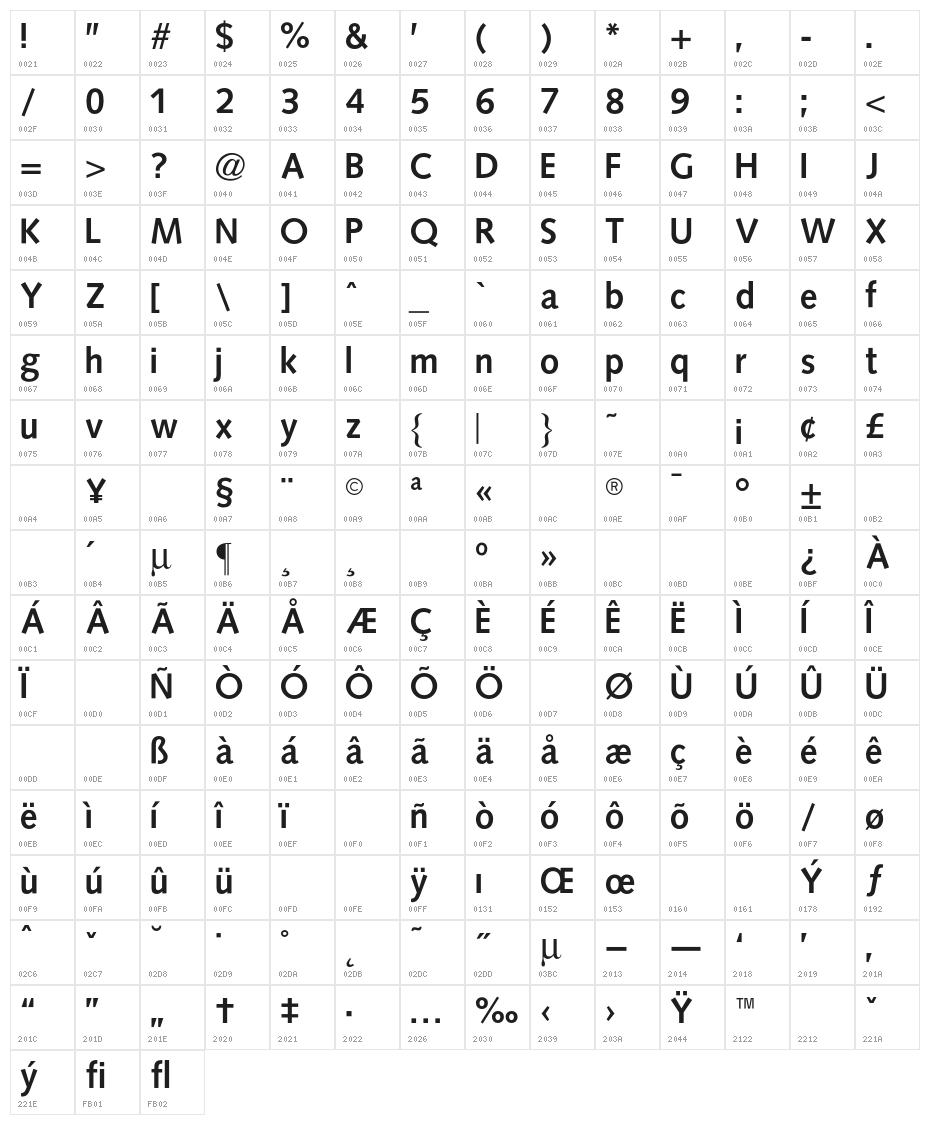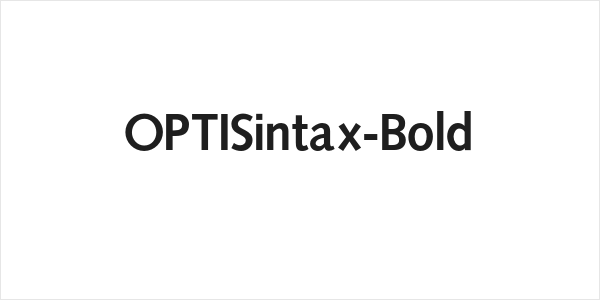
OPTISintax-Bold Font
OPTISintax-Bold Description
This typeface features a bold and modern sans-serif design with clean, straight lines and a uniform stroke width. The characters are well-proportioned, offering a balanced and professional appearance. Uppercase letters are tall and commanding, while lowercase letters maintain a consistent height, enhancing readability. The numerals are clear and distinct, making them suitable for various applications. Special characters are well-integrated, maintaining the overall aesthetic. The font's simplicity and clarity make it versatile for both digital and print media.
| Use Case | Headlines, Logos, Digital interfaces |
| Proposed Projects | Ideal for branding, advertising, headlines, and digital interfaces where clarity and impact are essential. |